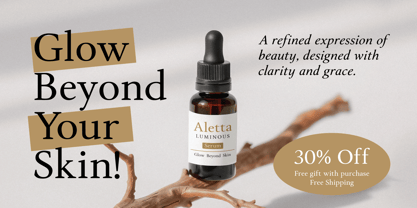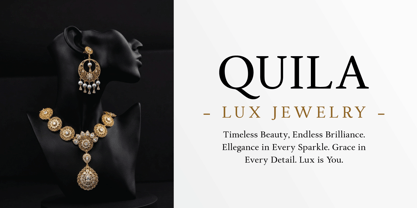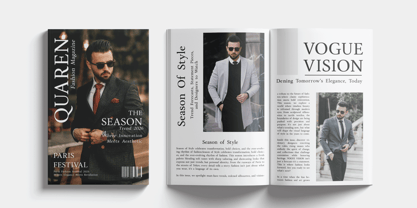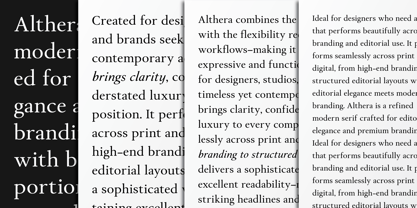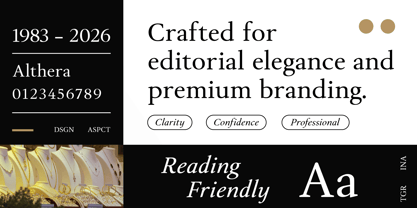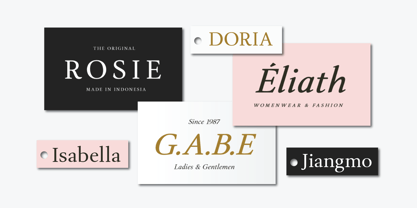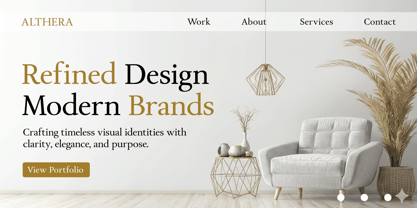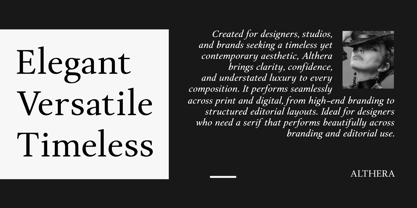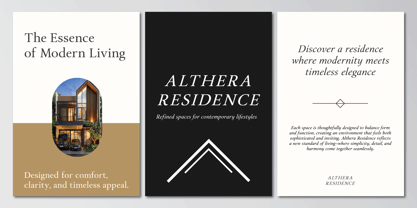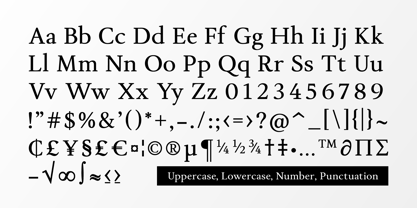
Althera
The Althera Font Family was designed by Muhammad Asroful Umam and published by Syauqi Studio. Althera contains 16 styles and family package options.
Althera – Modern Editorial Serif for Luxury Branding Althera is a refined modern serif crafted for editorial elegance and premium branding. Designed with balanced proportions and smooth, controlled contrast, Althera delivers a sophisticated voice while maintaining excellent readability—making it ideal for both striking headlines and extended text. Created for designers, studios, and brands seeking a timeless yet contemporary aesthetic, Althera brings clarity, confidence, and understated luxury to every composition. It performs seamlessly across print and digital, from high-end branding to structured editorial layouts. Perfectly suited for: • Fashion and luxury branding • Beauty and skincare packaging • Editorial design and magazines • Logo and identity systems • Elegant websites and portfolios Althera combines the grace of a classic serif with the flexibility required for modern design workflows—making it a reliable choice for both expressive and functional typography. Features: • Complete uppercase and lowercase set • Numerals, punctuation, and symbols • Multilingual support • Optimized spacing for balanced readability Ideal for designers who need a serif that performs beautifully across branding and editorial use. Althera — where editorial elegance meets modern branding.